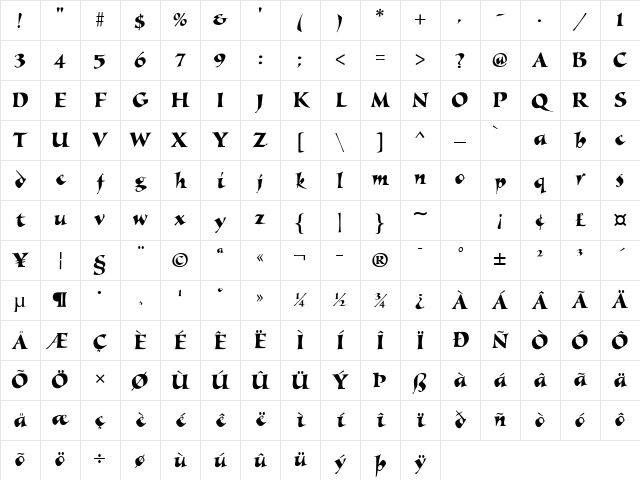
Complete AIAlexia Medium glyph index. Displaying only characters natively supported by AIAlexia Medium font.
AIAlexia is a composed and adaptable typeface that performs quietly and consistently across a wide range of design contexts.